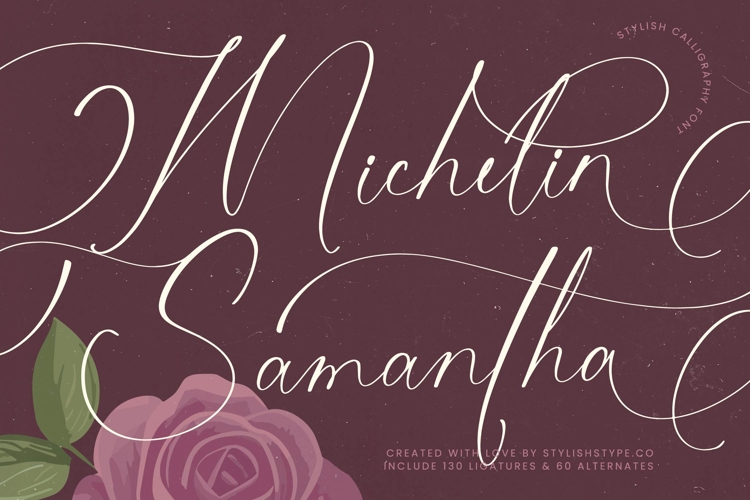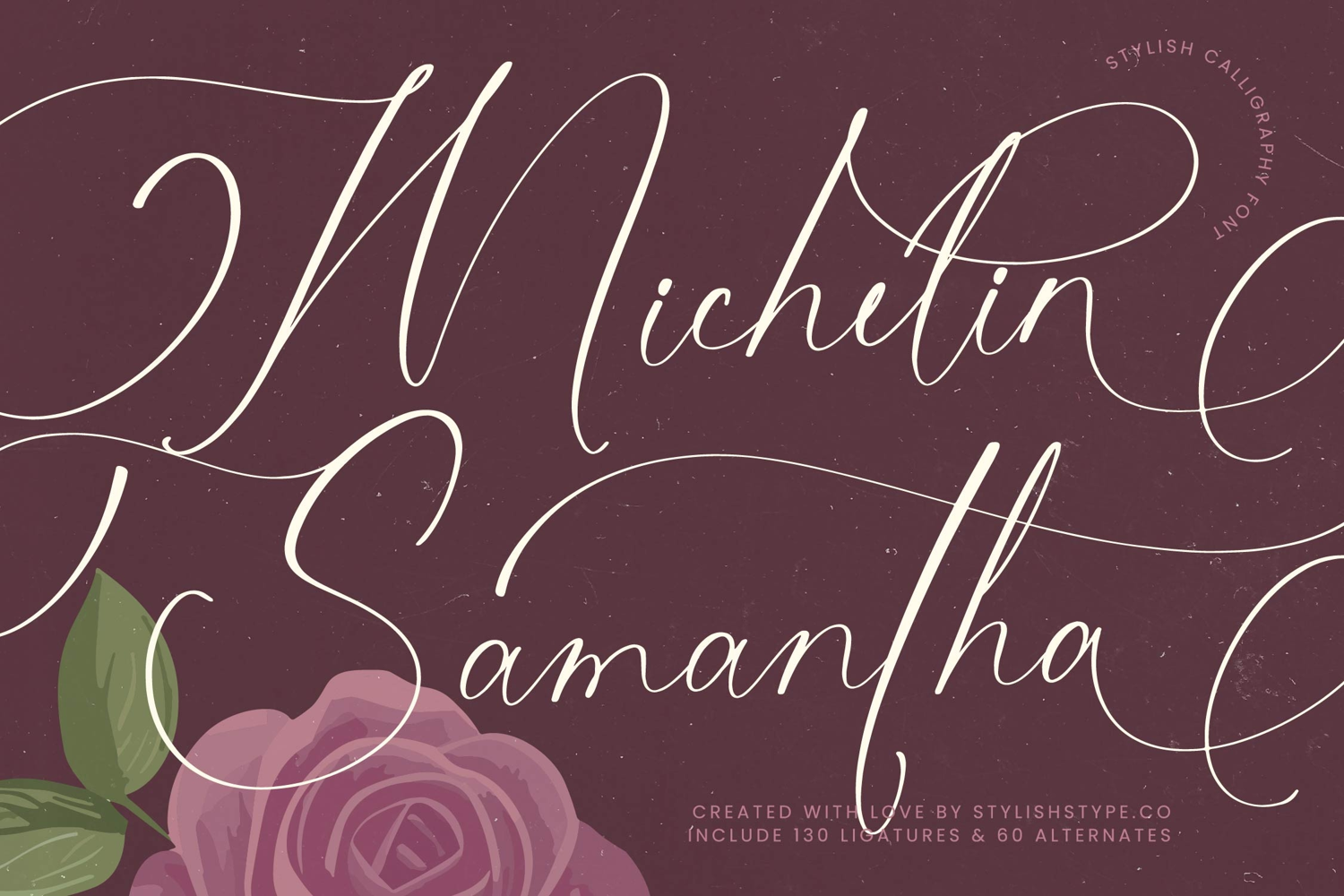
Michelin Samantha - Stylish Calligraphy Font
Michelin Samantha is a stylish calligraphy font that radiates timeless elegance and refined artistry. Its flowing strokes, delicate curves, and expressive ligatures make it perfect for projects that demand sophistication and beauty. With 130 ligatures and 60 alternates, Michelin Samantha provides endless versatility, allowing designers to craft custom lettering that feels graceful and unique.
This typeface excels in branding. Perfect for luxury logos, boutique shops, fashion houses, wedding brands, and monograms, Michelin Samantha communicates exclusivity and high-end sophistication. Its calligraphic style ensures that branding projects feel elegant, premium, and unforgettable, making it ideal for upscale markets.
In editorial and publishing, Michelin Samantha adds refinement and romance. Magazines, book covers, invitations, and event programs benefit from its artistic rhythm and graceful structure. It creates editorial layouts that balance legibility with luxurious beauty, turning titles and headlines into design highlights.
For web typography, this stylish calligraphy integrates seamlessly across blogs, websites, online shops, and social media platforms. Its handwritten elegance ensures that digital media projects look authentic, refined, and professional, enhancing the voice of modern brands and creators.
Michelin Samantha also shines in advertising and marketing. From posters, campaigns, promotional flyers, and business cards, its ornamental calligraphy ensures that advertising projects look captivating and stylish, resonating with audiences that value aesthetics and class.